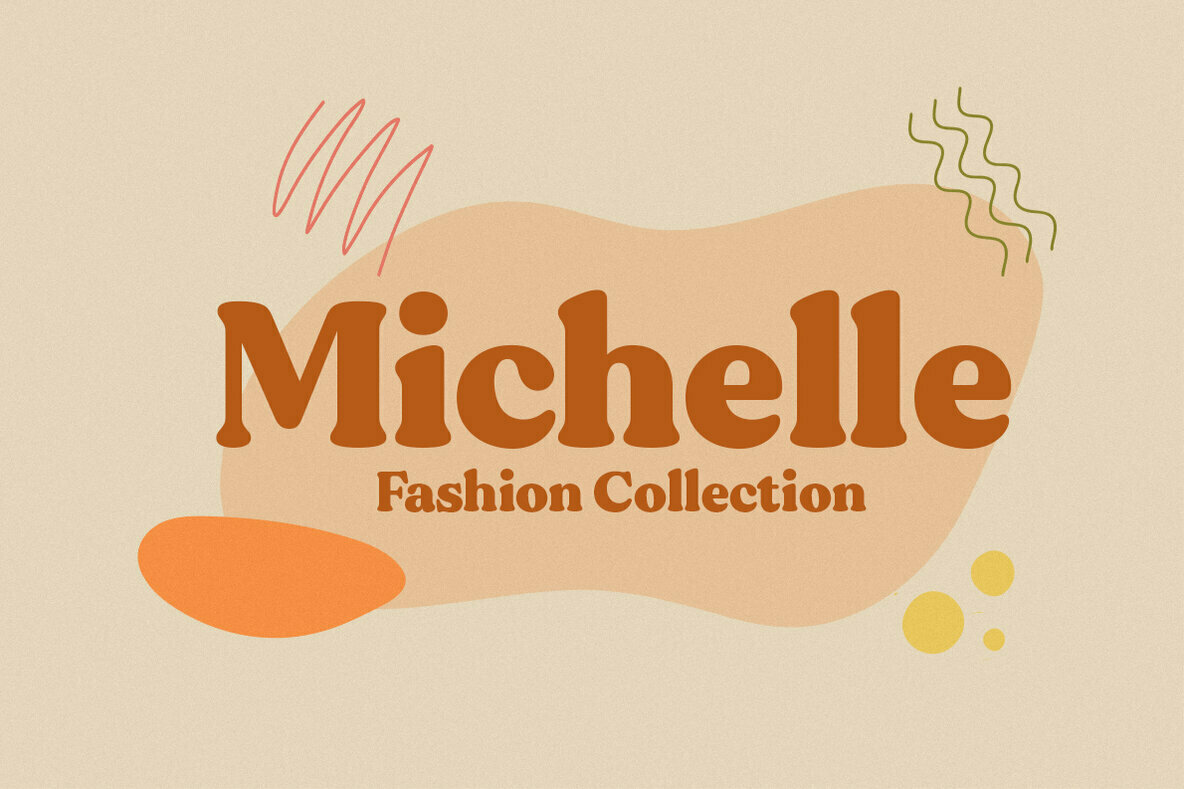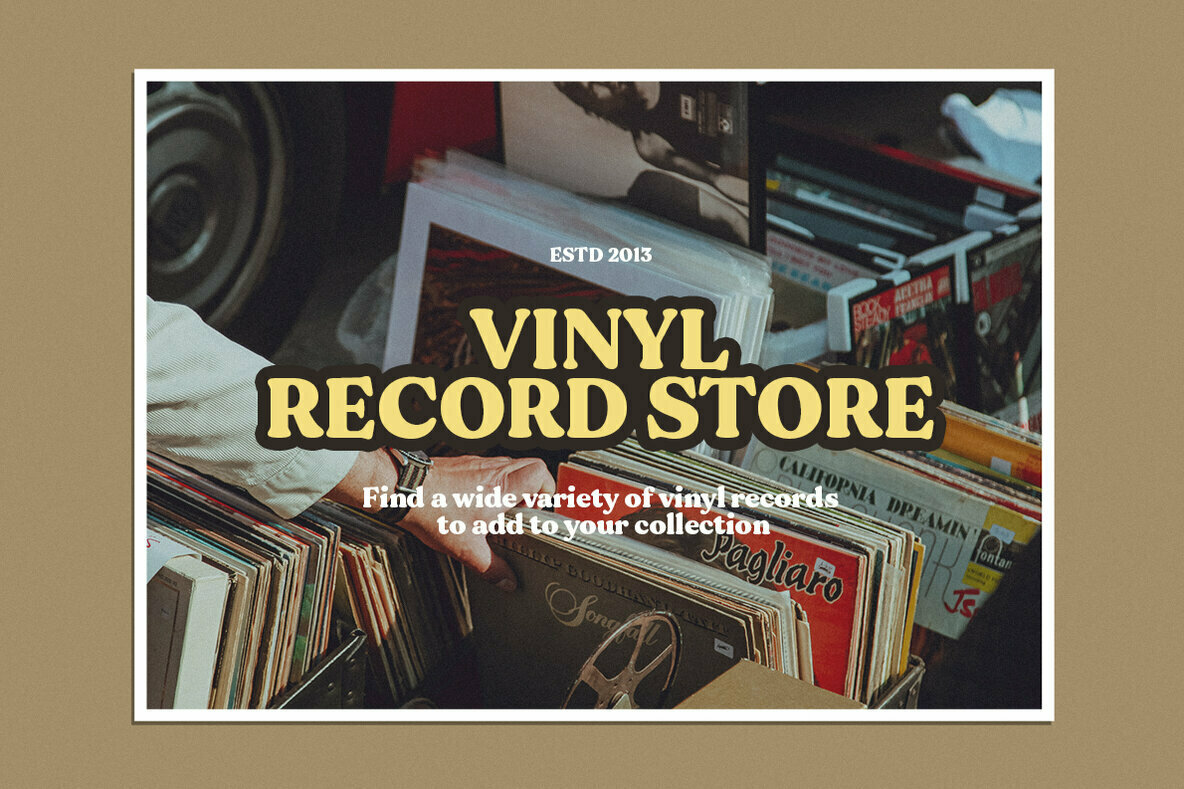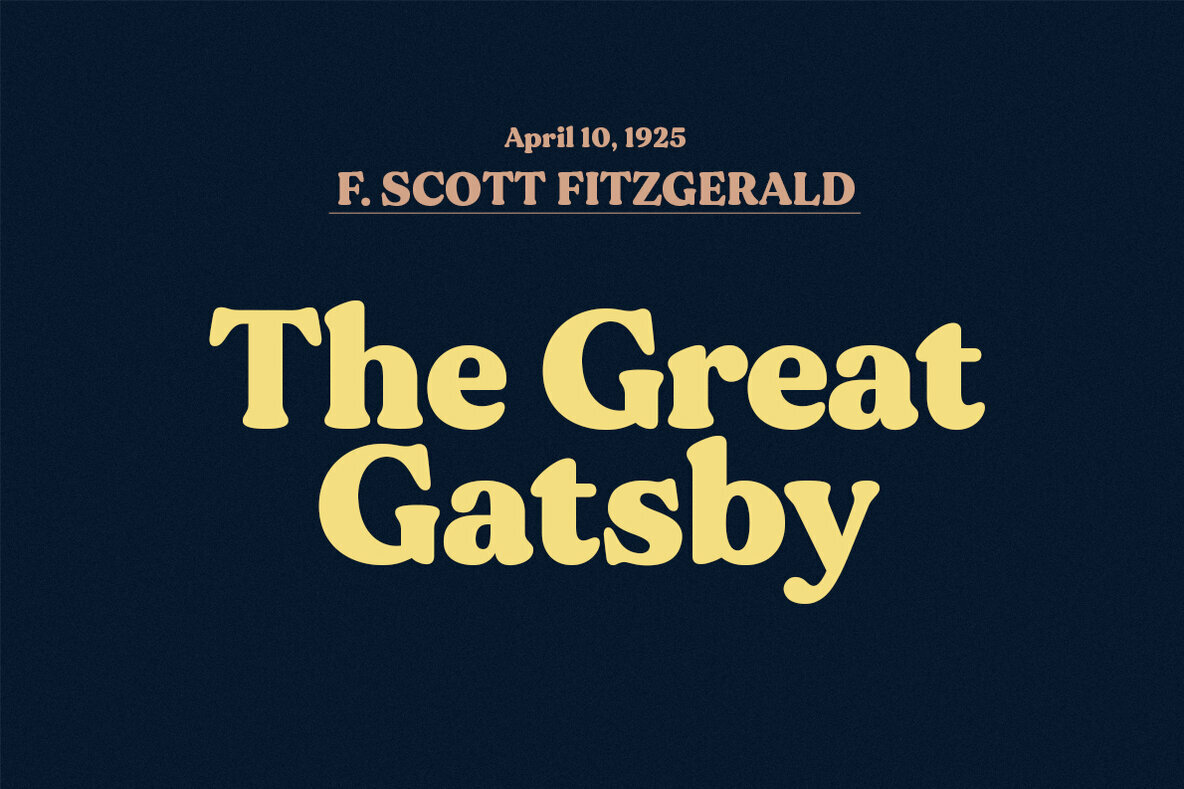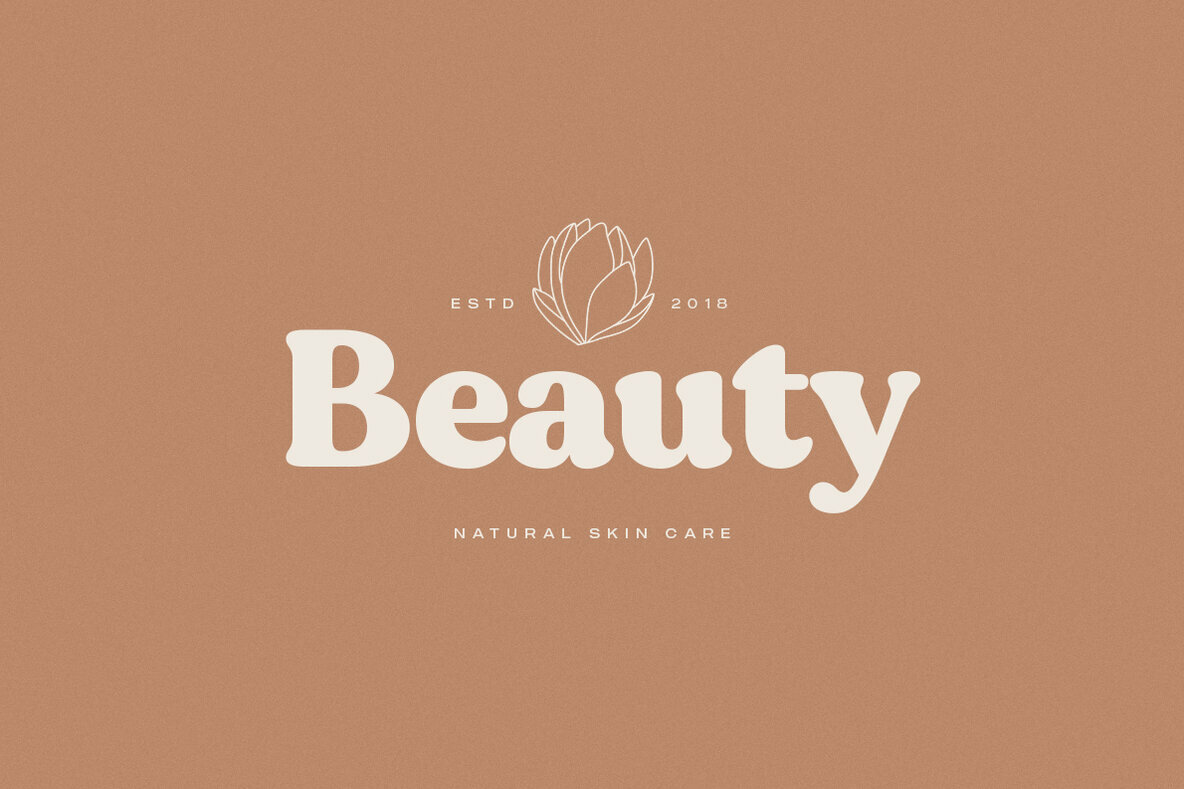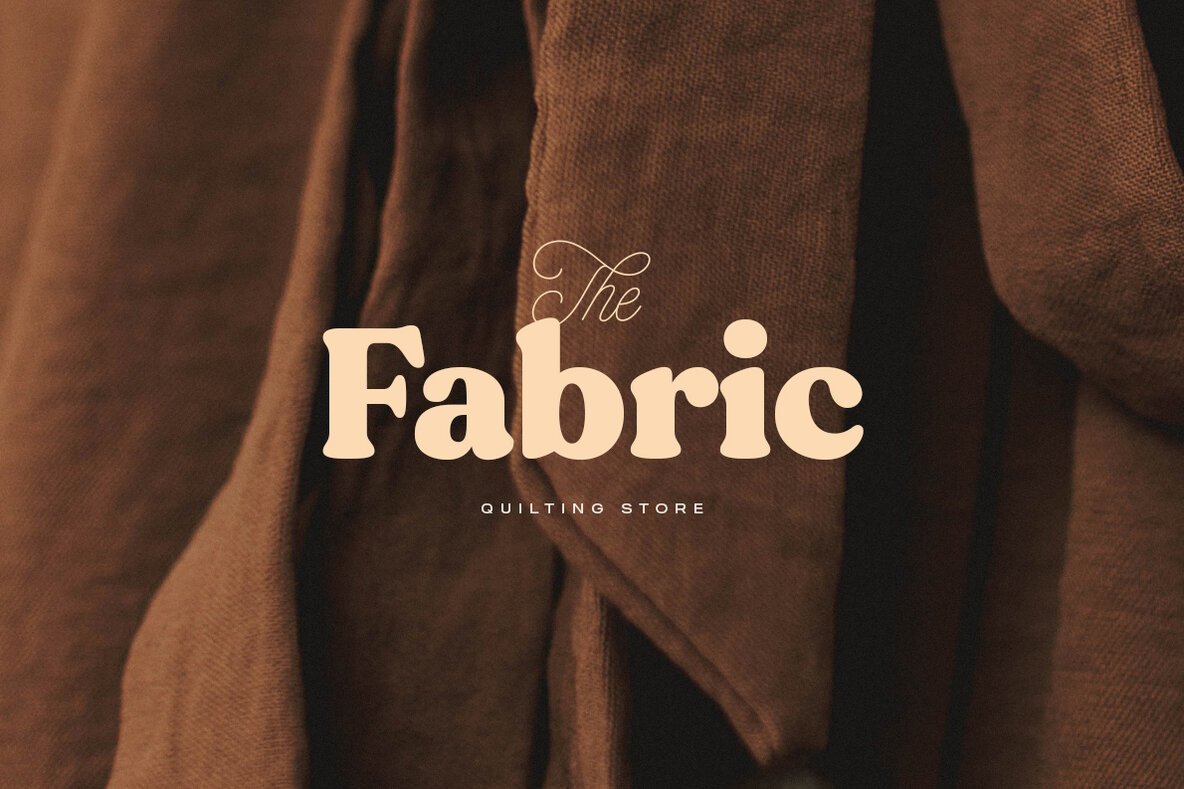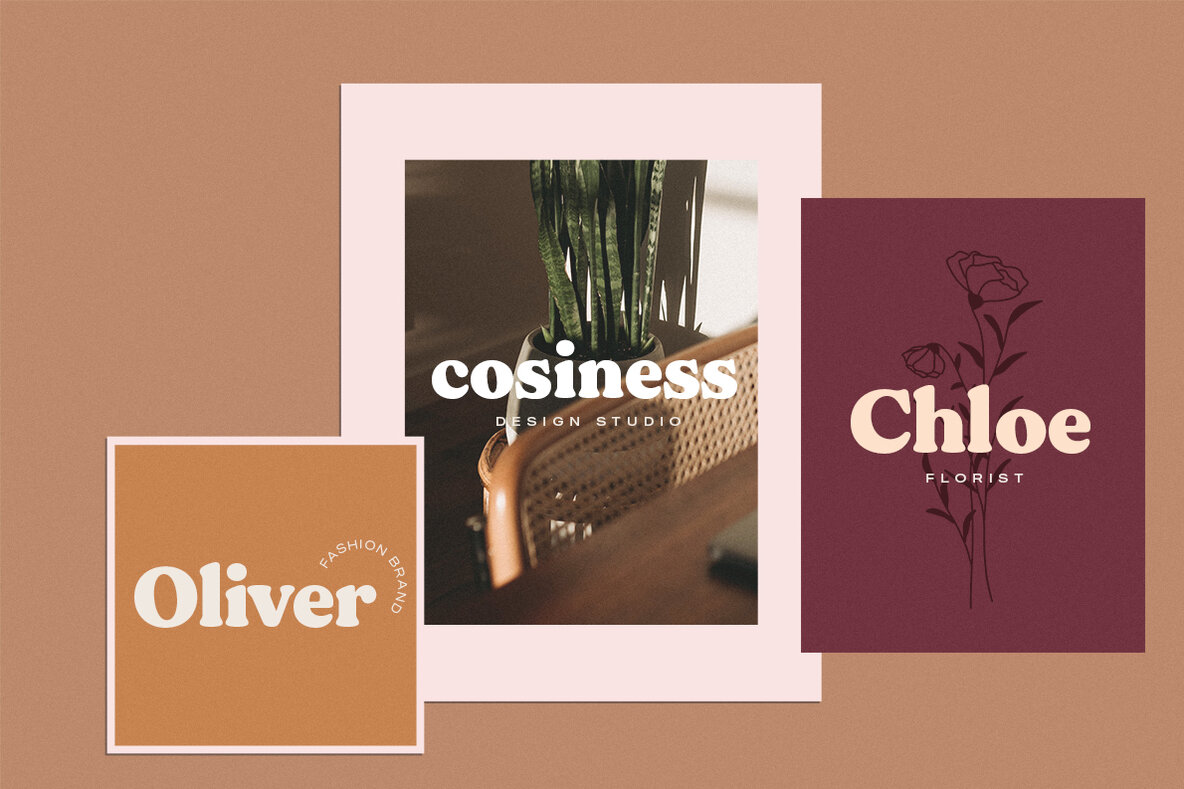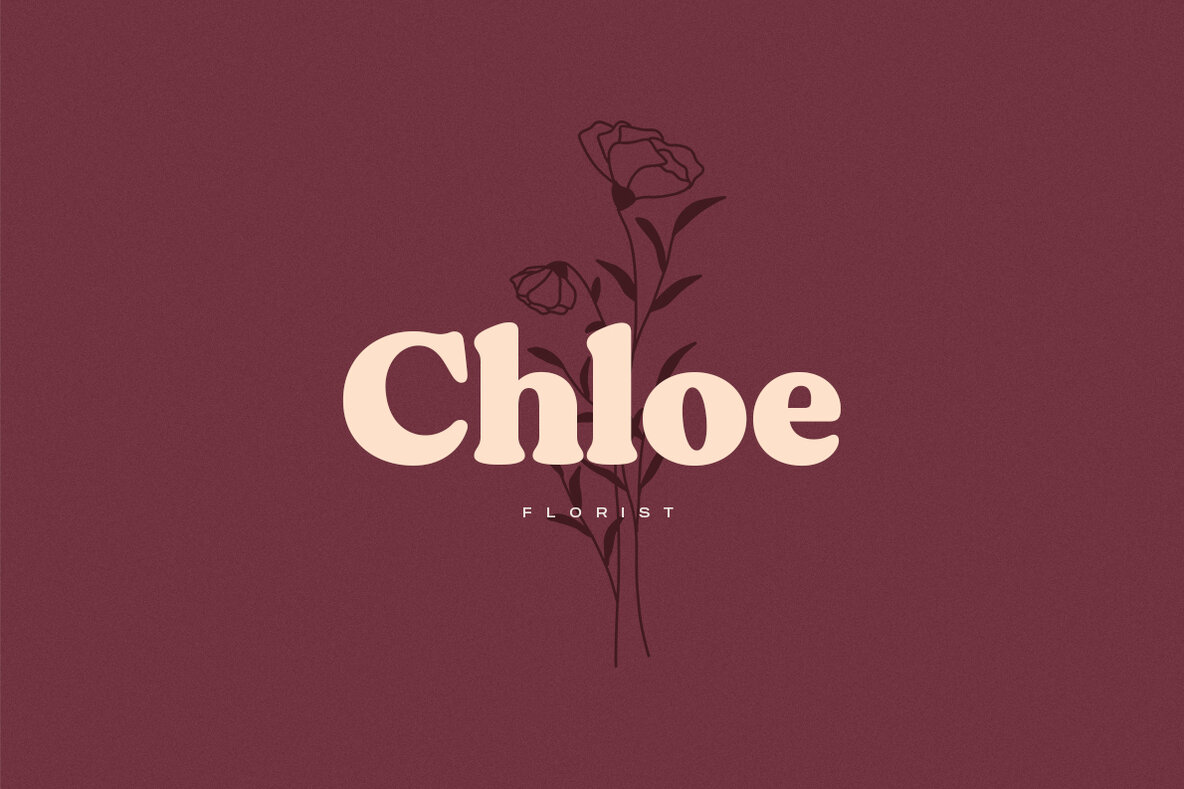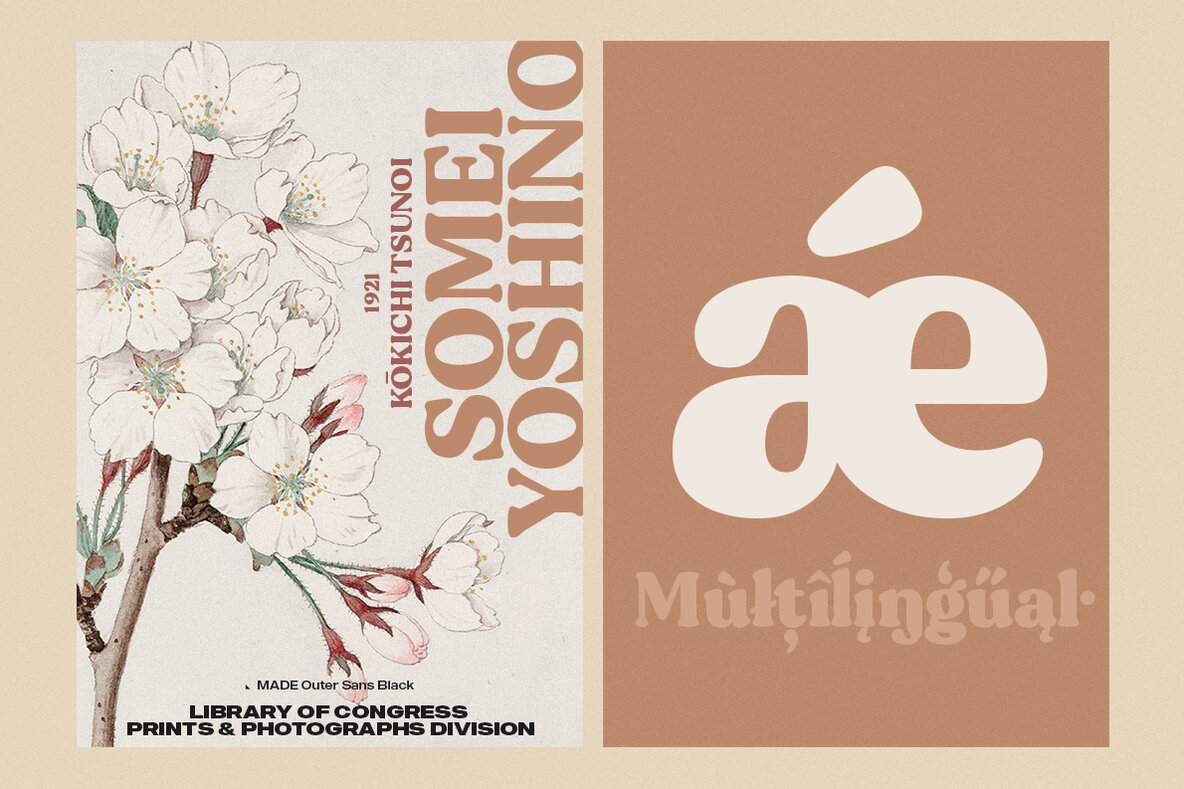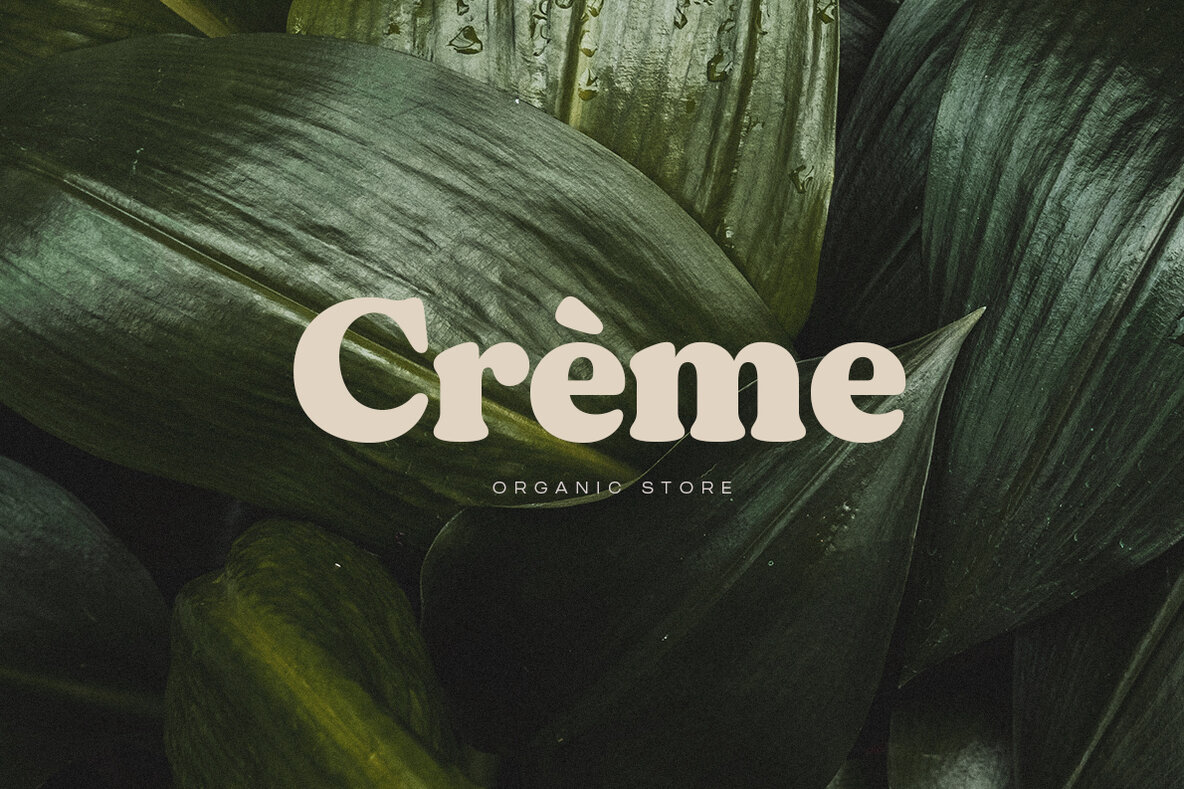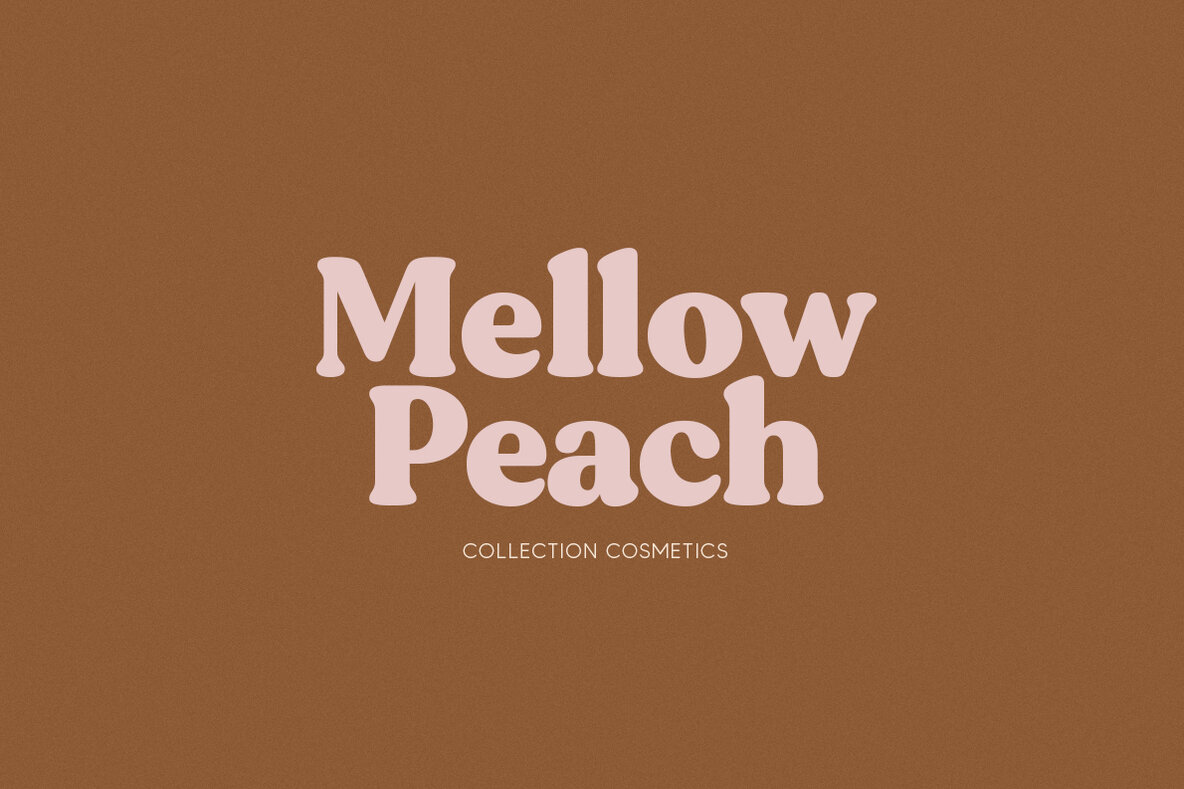
MADE Gentle Font
MADE Gentle
MADE Gentle exudes contemporary elegance with its soft serif features. Designed to bring a subtle charm to your projects, this typeface is an ideal match for creative endeavors that require a touch of sophistication. From fashion editorials to elegant wedding invitations, MADE Gentle delivers a distinct style that captures attention while maintaining a serene aesthetic. Features:MADE Gentle: A Soft Serif Typeface for Modern Design